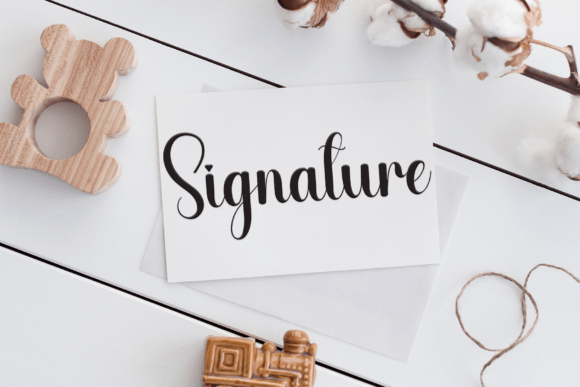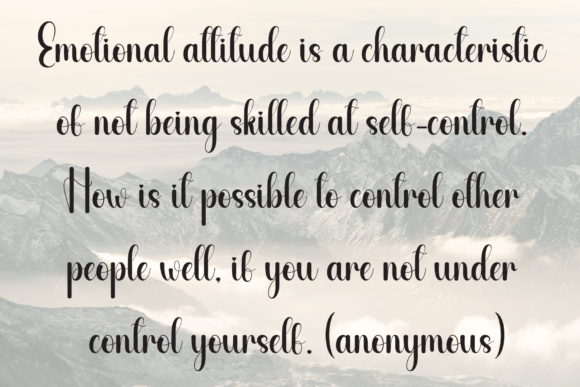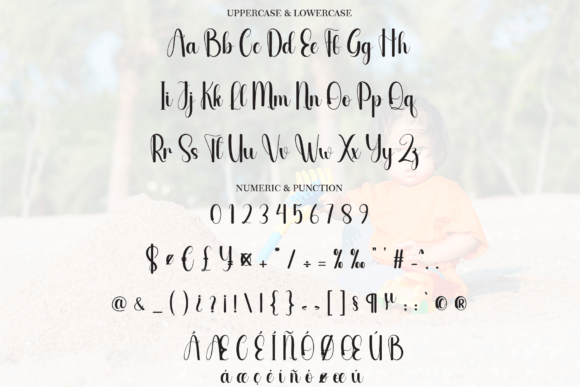
Introduction to Sandy Chubby Font
Do you remember the feeling of excitement and nervousness when planning your wedding? The countless hours spent searching for the perfect invitation design, the perfect color palette, and the perfect font to match your unique style. As a designer, you know how important it is to find the right font to bring your creative project to life. That’s where the Sandy Chubby Font comes in – a sweet and friendly handwritten font that’s sure to add a fun touch to any design.
With its fresh and neat look, the Sandy Chubby Font is a valuable resource for designers looking to add a personal touch to their work. Whether you’re designing wedding invitations, cards, or any other project that requires a high-quality font, this font is a must-have. Plus, with its transparent background, you can easily customize it to fit your design needs. And the best part? You can download it for free, making it a fantastic addition to your design arsenal.
Sandy Chubby Font
- Unique, playful design ideal for creative projects and design resources.
- Features a transparent background, allowing for easy layering and customization.
- High-quality design with crisp, clear lines and detailed textures, making it perfect for print and digital applications.
- Perfect for adding a touch of whimsy and personality to any design project, from logos and branding to illustrations and graphics.
Honest Review: Sandy Chubby Font
As a designer, I’ve had my fair share of experimenting with different design resources for my creative projects. Recently, I stumbled upon the Sandy Chubby Font and I must say, it’s been a delightful addition to my toolkit.
- High quality and smooth texture
- Easy to customize with transparent background option
- Perfect for creating whimsical and playful designs
However, there are a few limitations I’ve encountered:
- Limited character set, which might not be ideal for longer texts
- Some characters may not display correctly on certain platforms
⚠️ Despite these limitations, I still highly recommend the Sandy Chubby Font for its unique charm and versatility. It’s perfect for designers looking to add a touch of playfulness to their projects. With its high quality texture and transparent background option, it’s a valuable asset to any design resource collection.
Overall, I’m impressed with the Sandy Chubby Font and I’m excited to see how it will inspire my future creative projects. ✨
The Sandy Chubby Font is ideal for creative projects that require a fun and playful tone. Some common use cases include:
– Social media graphics and posts
– Party invitations and decorations
– Children’s book illustrations and designs